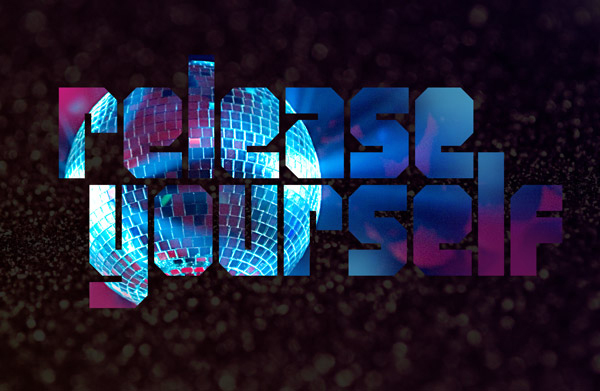
Released by Ivan Philipov is a free geometric display font built from dense, angular forms and abrupt rectangular cut-ins. Clipped corners and narrow openings sharpen its machined silhouette.
As a mechanical title treatment, it suits science-fiction posters, game interfaces, and electronic music artwork because its solid blocks resemble parts of a machine or a stark digital structure. It is most convincing in entertainment branding and technology packaging, where a few words can become a visual emblem assembled from hard-edged components.
partially created with FontStruct. Inspired by Roger Sanchez' "Release Yourself" compilations.